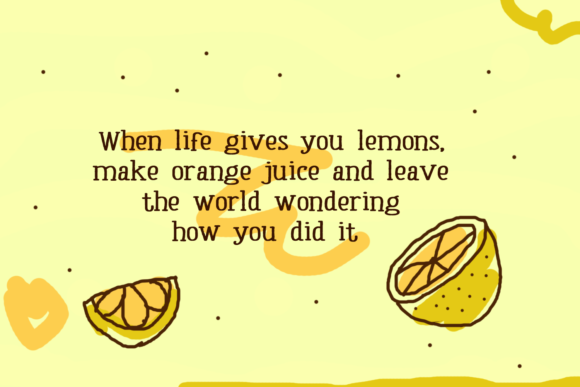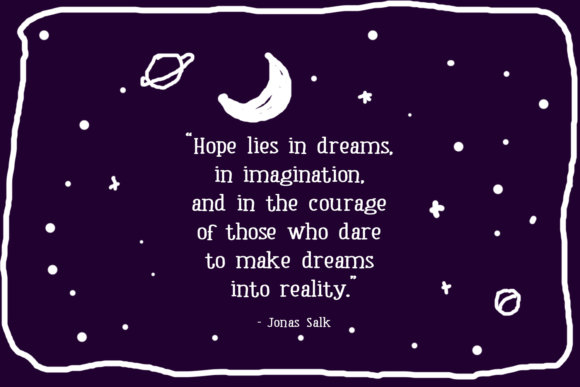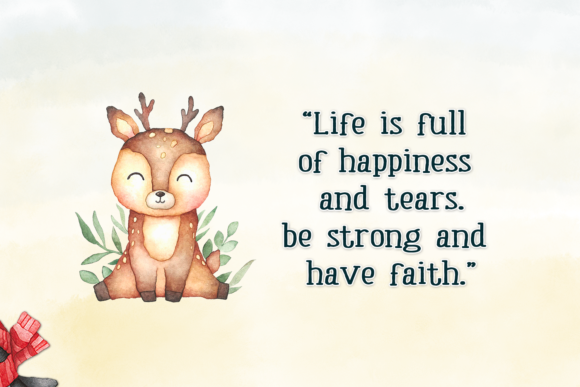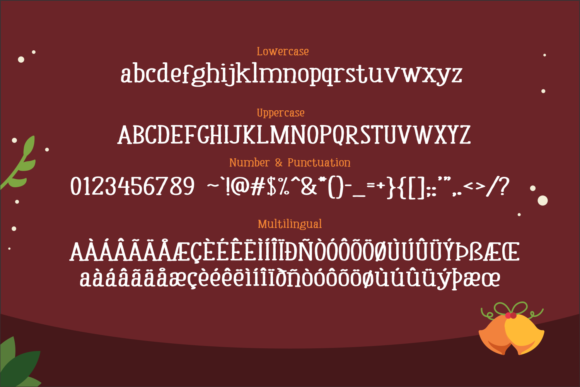
Discover the Magic of Fontastic Harmony Font
I’ll never forget the time I was working on a branding project for a trendy new cafe. I had the logo concept nailed, but I was struggling to find the perfect font to complement it. That’s when I stumbled upon Fontastic Harmony – a cool and adaptable display font that instantly elevated my design. In this article, I’ll share my experience with Fontastic Harmony, its features, and how to make the most of it in your creative projects.
An Honest Review of Fontastic Harmony
As a designer, I’m always on the lookout for fonts that can bring a unique touch to my projects. Here’s what I love about Fontastic Harmony:
- ✨ Versatility: Fontastic Harmony can easily be matched to an incredibly large set of projects, making it a great addition to your font library.
- ✅ Legibility: The font is clear and easy to read, even at smaller sizes.
- 💥 Visual Impact: Fontastic Harmony has a bold and eye-catching style that can instantly make your designs stand out.
While Fontastic Harmony is an excellent font, it’s not without its quirks:
- 🤔 Limited use in body text: Due to its bold and decorative nature, Fontastic Harmony might not be the best choice for lengthy body text.
- ⚠️ Kerning issues: As with any font, you might need to adjust the kerning to ensure optimal spacing between letters.
- Experiment with OpenType features, such as stylistic alternates and glyphs, to add visual interest to your text.
- Explore the OpenType features, such as swashes and stylistic sets, to add a creative twist to your text.
- Although Word might not support all OpenType features, you can still use Fontastic Harmony’s unique character set to enhance your text.
The Story Behind Fontastic Harmony
Fontastic Harmony was designed with the goal of creating a versatile and eye-catching display font. The designer aimed to craft a font that could be used in a variety of creative projects, from branding and advertising to packaging and digital media. With its unique character set and OpenType features, Fontastic Harmony has become a popular choice among designers and crafters.
| Font Name | Fontastic Harmony Font |
| Author | Nun Creatype |
| What type of projects is Fontastic Harmony best suited for? | Fontastic Harmony is perfect for creative projects that require a bold and eye-catching font, such as branding, advertising, packaging, and digital media. |
| Can I use Fontastic Harmony for body text? | While Fontastic Harmony can be used for short paragraphs, it’s not recommended for lengthy body text due to its bold and decorative nature. |
| Does Fontastic Harmony support OpenType features? | Yes, Fontastic Harmony supports OpenType features, including stylistic alternates, glyphs, and swashes. |